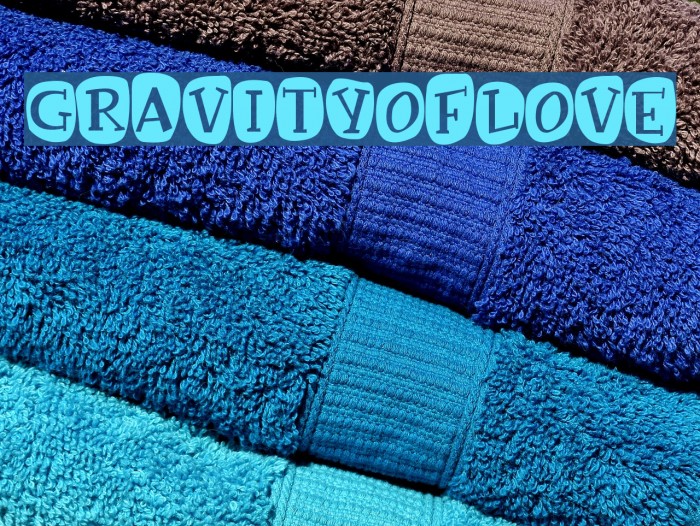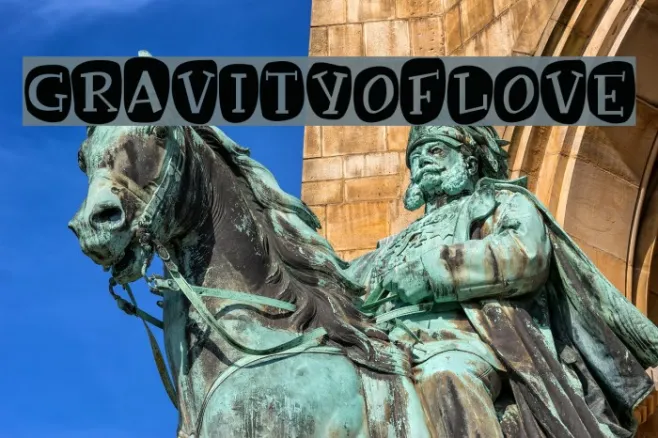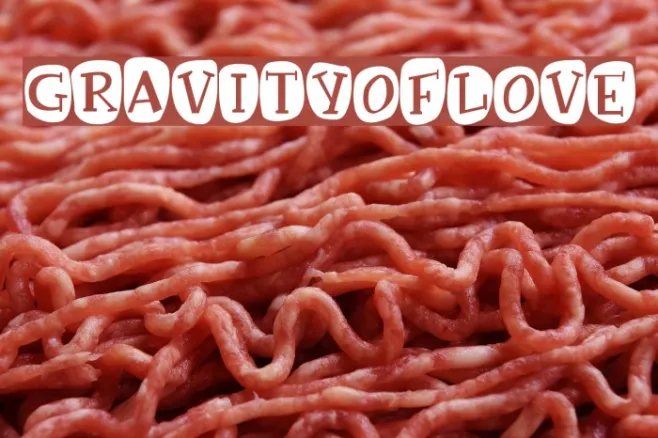
GravityofLove Font
This font features a playful and bold design with each character enclosed in a rounded, irregular black shape, creating a striking contrast between the white letters and their dark backgrounds. The uppercase and lowercase letters are consistent in style, maintaining a whimsical yet legible appearance. The numbers and special characters follow the same design principle, ensuring uniformity across all glyphs. The font's unique style makes it ideal for projects that require a fun and eye-catching typeface, such as children's books, playful branding, or creative posters. Its boldness and distinctiveness ensure that it stands out in any application.
A playful, bold font with characters enclosed in rounded black shapes, ideal for creative projects.
- Proposed Projects: Children's books, playful branding, creative posters, event invitations, and merchandise design.
- Overall Style: Playful, Whimsical